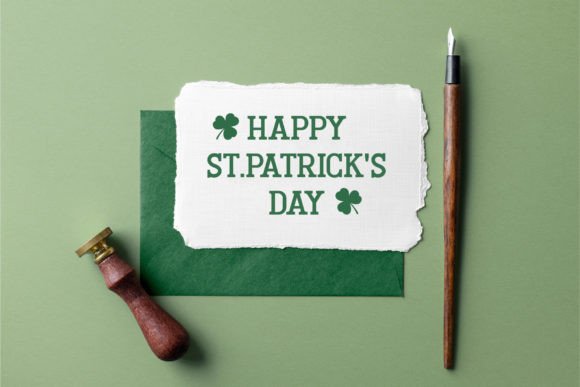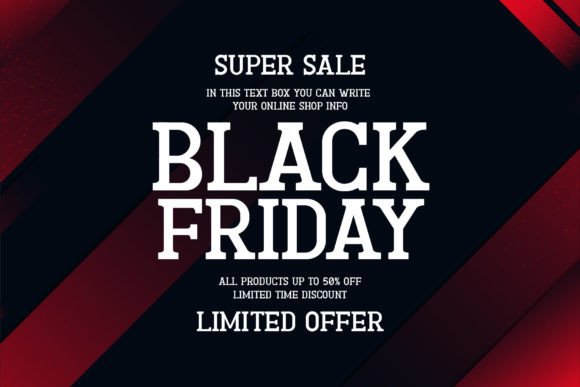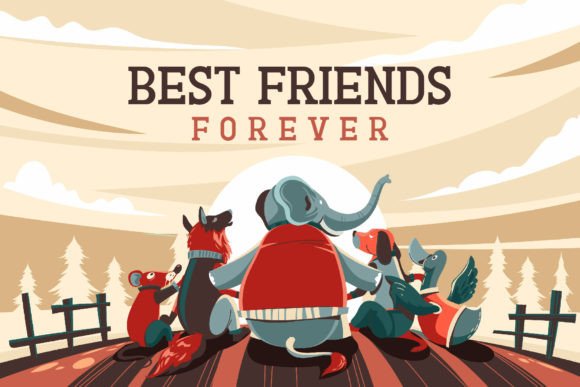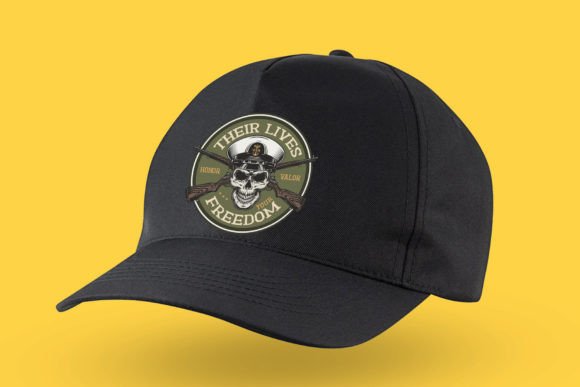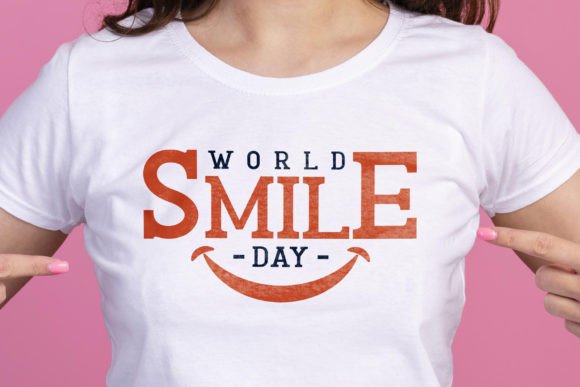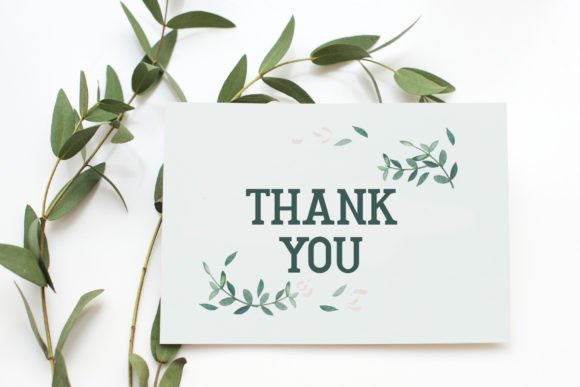
Introducing Farmhouse Font: Elevate Your Designs with a Touch of Elegance
Are you a designer, crafty enthusiast, or simply someone who appreciates beautiful typography? Look no further than the Farmhouse Font, a simple yet versatile slab serif font that can instantly elevate your creative projects. With its elegant and vintage charm, this typeface is perfect for a wide range of applications, from logos and title designs to fashion branding, magazines, and more.
Farmhouse Font is a slab serif typeface characterized by its clean lines, simple shapes, and rustic charm. Its classic design makes it an excellent choice for those seeking a timeless and sophisticated look. The font’s versatility lies in its ability to adapt to various design contexts, making it a valuable addition to any designer’s toolkit.
Perfect for Elegant and Vintage Logos
Logos are a crucial aspect of branding, and the right font can make all the difference. Farmhouse Font is an excellent choice for creating elegant and vintage logos that exude sophistication and refinement. Its slab serif design adds a touch of rustic charm, making it perfect for businesses that want to convey a sense of tradition and heritage.
Book or Movie Title Designs
When it comes to book or movie title designs, the font used can greatly impact the overall aesthetic. Farmhouse Font is an excellent choice for these types of projects, as its classic design and elegant feel evoke a sense of nostalgia and timelessness. Whether you’re designing a book cover or a movie poster, this font is sure to make your title stand out.
Fashion Brands and Magazines
Fashion brands and magazines require fonts that are stylish, sophisticated, and attention-grabbing. Farmhouse Font fits the bill perfectly, with its clean lines, simple shapes, and elegant feel. Use it to create stunning headlines, titles, and quotes that will elevate your fashion brand or magazine to the next level.
Clothes and Lettering
For crafty enthusiasts and designers who specialize in clothing and lettering, Farmhouse Font is an excellent choice. Its rustic charm and classic design make it perfect for creating custom lettering, quotes, and designs for clothes, bags, and other textiles.
Why Choose Farmhouse Font?
So, why should you choose Farmhouse Font for your design projects? Here are just a few reasons:
- Versatility: Farmhouse Font is a versatile typeface that can be used in a wide range of design contexts, from logos and titles to fashion branding and lettering.
- Elegance: Its classic design and elegant feel make it perfect for creating sophisticated and refined designs.
- Timelessness: Farmhouse Font has a timeless quality that ensures your designs will remain stylish and relevant for years to come.
- Easy to Read: Its clean lines and simple shapes make it easy to read, even at smaller font sizes.
How to Use Farmhouse Font
Using Farmhouse Font in your design projects is easy. Here are a few tips to get you started:
- Experiment with Font Sizes: Farmhouse Font looks great at a variety of font sizes, from large headlines to smaller body text.
- Play with Colors: Try pairing Farmhouse Font with different colors to create stunning contrast and visual interest.
- Add Texture and Patterns: Add texture and patterns to your designs to give them an extra layer of depth and interest.
Farmhouse Font is a simple yet versatile slab serif font that can elevate your design projects to new heights. Its elegant and vintage charm makes it perfect for a wide range of applications, from logos and title designs to fashion branding and lettering. With its timeless quality, ease of use, and versatility, Farmhouse Font is an excellent addition to any designer’s toolkit. So why wait? Add Farmhouse Font to your favorite creative ideas and watch them come alive!